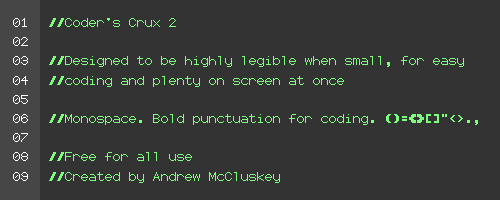
Preview and download Coder's Crux 2 Font. Created by NALGames in Bitmap help styles with 100% Free license.
Free for all use. Optimised for coding - it's small, monospace, and punctuation is bolder than the text. |